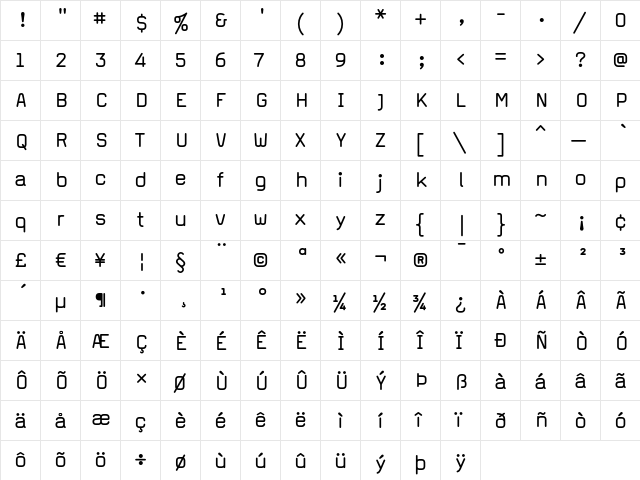
MagdaClean Regular
Design Context for MagdaClean Typeface
MagdaClean takes a measured approach to typography — its balanced proportions and neutral character make it a reliable workhorse for both digital and print work.